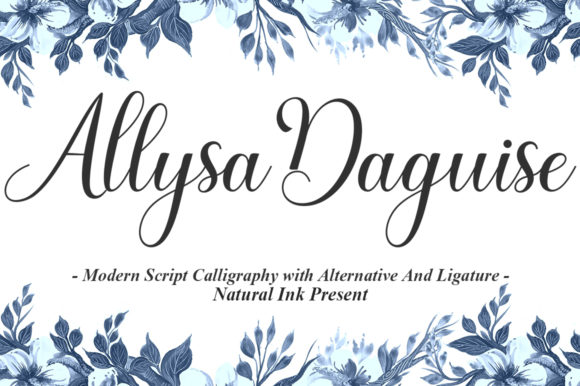
Allysa Daguise Font: A Handwritten Touch for Every Design
If you're looking for a font that blends elegance with charm, Allysa Daguise is a name worth knowing. This beautifully crafted script font brings a personal and artistic flair to any design project, making it an ideal choice for those who want to add a handwritten touch without sacrificing style or professionalism.
Allysa Daguise features smooth lines, varying baselines, and an array of stunning glyphs and alternates that give it a unique personality. Its PUA encoding makes accessing special characters and swashes effortless, allowing designers to create visually striking compositions with ease.
Elegant Style for Timeless Appeal
The visual characteristics of Allysa Daguise are what make it stand out in the world of typography. As a handwritten font, it carries the warmth and authenticity of real calligraphy while maintaining a level of refinement that suits both modern and traditional aesthetics.
With its graceful curves and elegant flourishes, this script font can transform simple text into something truly memorable. Whether used in a wedding invitation or a business card, Allysa Daguise adds a sense of sophistication and individuality that's hard to achieve with standard typefaces.
Its varying baseline creates a natural, organic feel, making it perfect for projects that require a more personal or artisanal approach. The font’s clean yet expressive lines ensure readability even when used in larger sizes, which is especially important for display purposes.
Where Allysa Daguise Shines
Allysa Daguise is incredibly versatile and can be used across a wide range of creative and commercial applications. Here are some of the most effective ways to incorporate this font into your design work:
Its adaptability also makes it suitable for editorial design, such as book covers, magazine layouts, and even web banners where a premium font can enhance visual appeal without overwhelming the reader.
Design Considerations and Best Practices
While Allysa Daguise is visually appealing, it’s important to use it thoughtfully to maintain clarity and effectiveness in your designs. Here are a few practical tips to consider:
Font Pairing: To balance the ornate nature of Allysa Daguise, pair it with a clean sans serif font for body text. This combination ensures that the design remains legible while still showcasing the beauty of the script font.
Readability: Although Allysa Daguise is designed for visual impact, it should not be used for long paragraphs or small text. Reserve it for headings, titles, and short phrases where its elegance can shine without compromising readability.
Testing: Always test how Allysa Daguise looks in different contexts before finalizing a design. View it on various screen sizes and print formats to ensure it maintains its visual integrity across all mediums.
Enhancing Brand Perception with Allysa Daguise
The right font can significantly influence how your audience perceives your brand. Allysa Daguise has the potential to convey a sense of creativity, craftsmanship, and attention to detail—qualities that resonate well with a diverse audience ranging from entrepreneurs to hobbyists.
By incorporating Allysa Daguise into your branding elements, you can create a consistent and professional look that helps reinforce your brand’s identity. Whether you’re launching a new product, updating your website, or designing promotional materials, this font can play a key role in shaping how your audience connects with your message.
Its ability to blend seamlessly into both digital and print media makes it a valuable asset for marketers, publishers, and content creators who want to maintain a cohesive visual presence across multiple platforms.
In conclusion, Allysa Daguise is more than just a beautiful font—it’s a powerful design tool that can elevate the look and feel of your projects. With its elegant style, versatility, and thoughtful design, it’s no wonder that this handwritten font continues to be a favorite among designers and creatives alike.